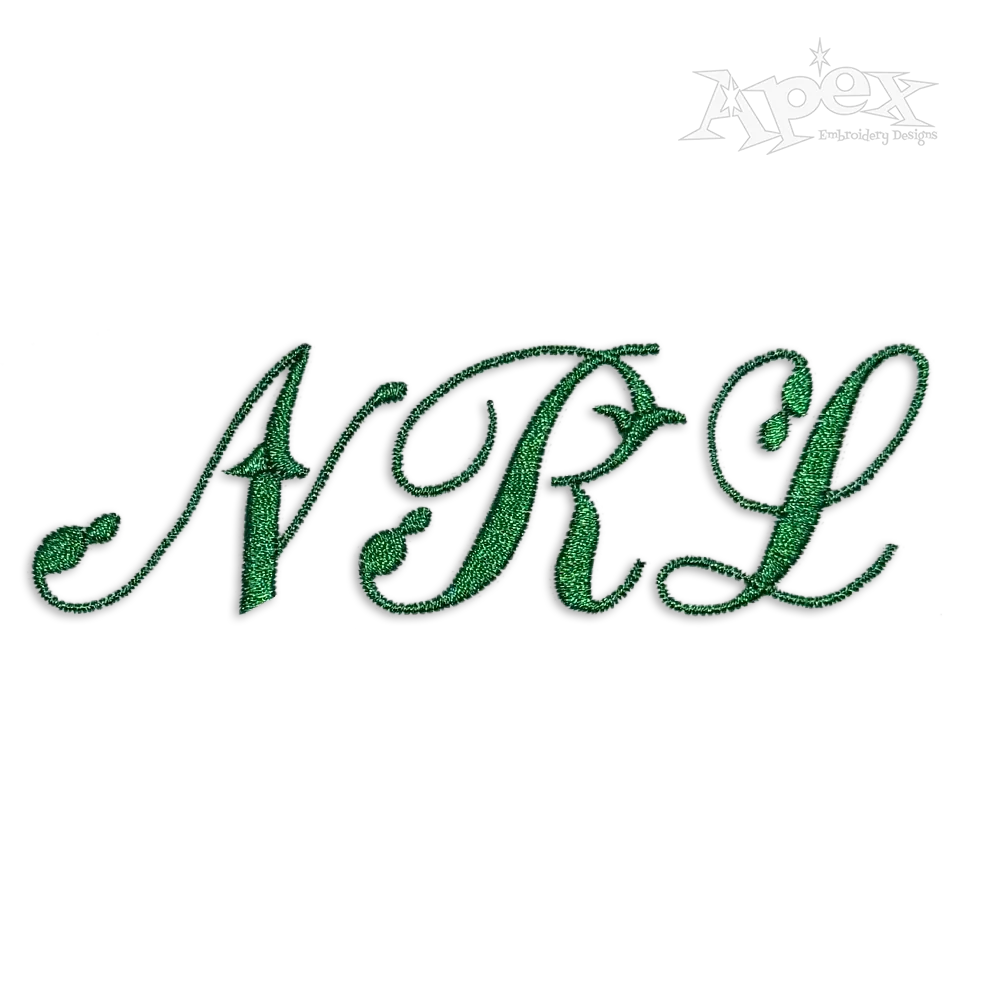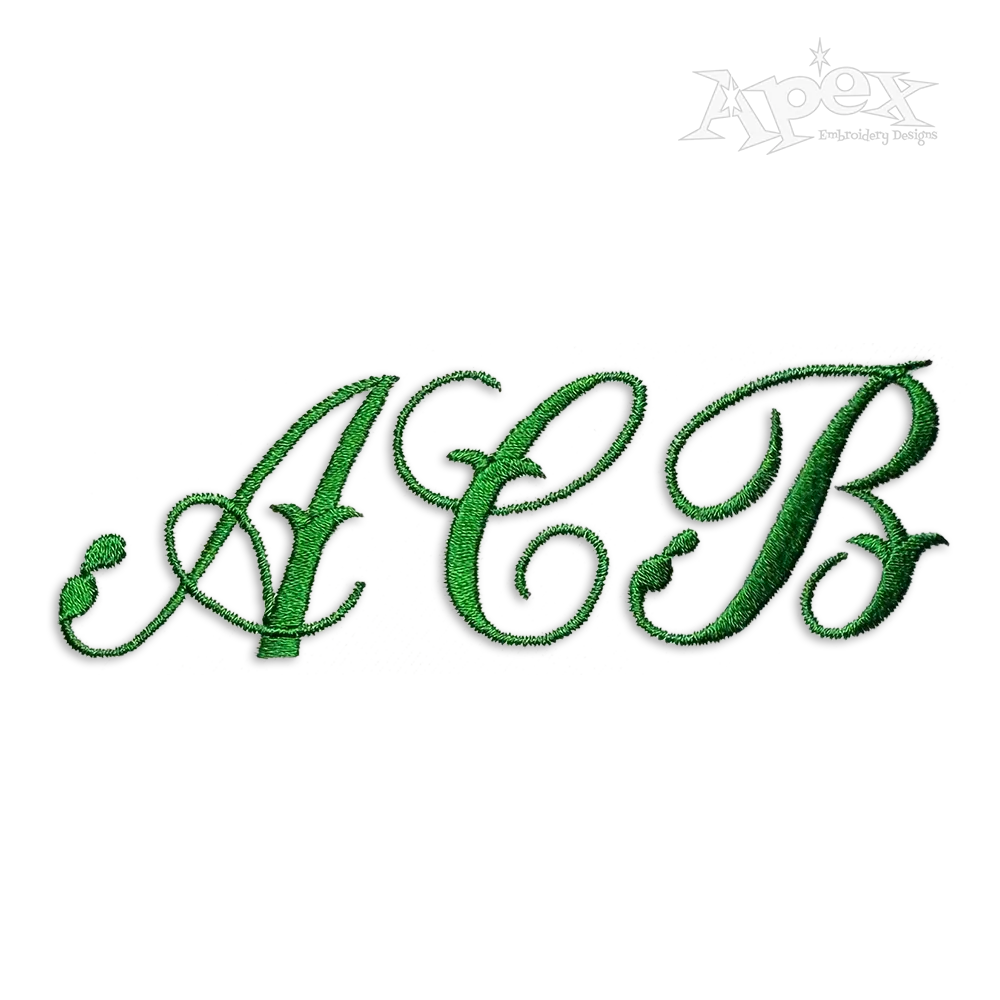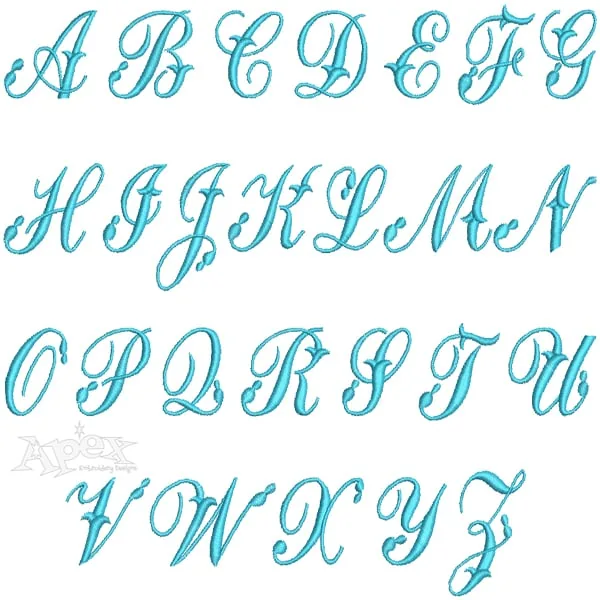
Wick Script Embroidery Font
Evoking the effortless romance of antique correspondence and vintage handwritten calligraphy, the Wick Script Embroidery Font breathes timeless poise into modern needlework. As digitizers, our vision was to capture the fluid dance of fine fountain pen ink on crisp parchment—translating delicate swells, graceful loops, and sweeping ascenders into lustrous embroidery thread. The result is an airy, romantic script alphabet that catches the light with understated luxury, turning every personalized garment and textile into a cherished heirloom.
Designed with meticulous attention to stitch balance and aesthetic proportion, Wick Script delivers pristine results across your favorite embroidery projects:
- Upper Case Alphabet: Sized at 1.25 inches in height (ideal for standalone single-letter monograms, bespoke initials, or prominent focal accents).
Project Ideas for Wick Script
The graceful, flourishing contours of Wick Script lend themselves beautifully to upscale boutique commissions and elevated personalized gifting:
- Luxury Table Linens: Embroider crisp hemstitched dinner napkins, linen runners, and cocktail coasters for celebratory dinners and garden parties.
- Bridal & Wedding Accents: Stitch romantic bride and bridal party initials onto silk robes, clutch bags, dress labels, or ribbon wraps for wedding bouquets.
- Heirloom Nursery Essentials: Personalize heirloom baby blankets, christening gowns, and custom keepsake pillows with soft, gentle cursive lettering.
- Bespoke Resort Wear: Add subtle coastal sophistication to linen button-downs, resort wear tunics, sun hats, and canvas tote bags.
- Executive & Holiday Gifting: Create tailored monograms for plush bathrobes, velvet jewelry cases, and festive decorative guest towels.
Because of its flowing nature and elegant 1.25-inch profile, Wick Script settles effortlessly across a variety of placements:
- Diagonal Corner: Angle individual letters diagonally approximately 1.5 to 2 inches from the hemmed corner of dinner napkins and handkerchiefs for classic European dining elegance.
- Left Chest Crest: Position a single initial 7 to 8 inches down from the left shoulder seam on bespoke shirts, pajamas, or lightweight cardigans.
- Sleeve Cuff: Position an accent initial subtly above the wrist hemline on tailored shirts or robe sleeves for an intimate, bespoke detail.
- Center Pillow Placement: Showcase a standalone uppercase letter precisely centered on accent shams or ring bearer cushions.
Wick Script Craft & Letterform Details
Digitizing a delicate cursive alphabet at 1.25 inches requires an artisan's balance between delicate grace and structural integrity. Rather than relying on rigid geometric satin columns, each letter in Wick Script has been mapped with thoughtful stitch angles that mirror the natural direction of hand-drawn calligraphy. Gentle, tapered entry strokes glide into rich, smooth satin turns that maintain their definition without bunching or puckering delicate ground fabrics. Underlay stitching has been custom-calibrated beneath each stroke to softly lift the lustrous surface thread, ensuring clean edge definition, fluid transitions, and unmatched clarity on everything from crisp poplin to textured linen.